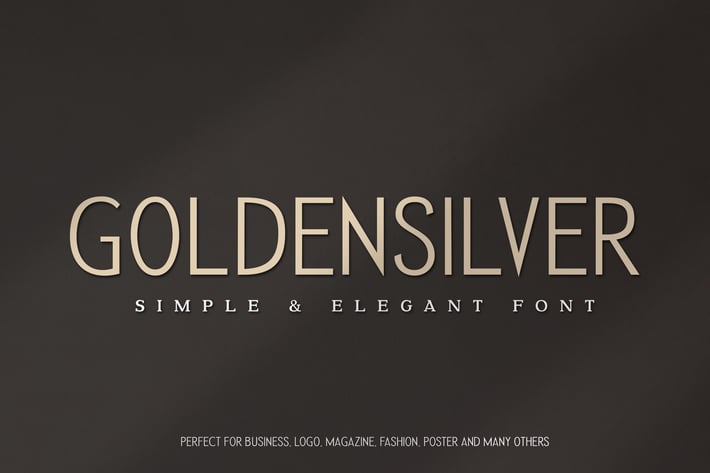
Golden Silver Agency Font
typecoconut
Golden Silver is elegant and modern serif font. It can easily be matched to an incredibly large set of projects, so add it to your creative ideas and notice how it makes them stand out!